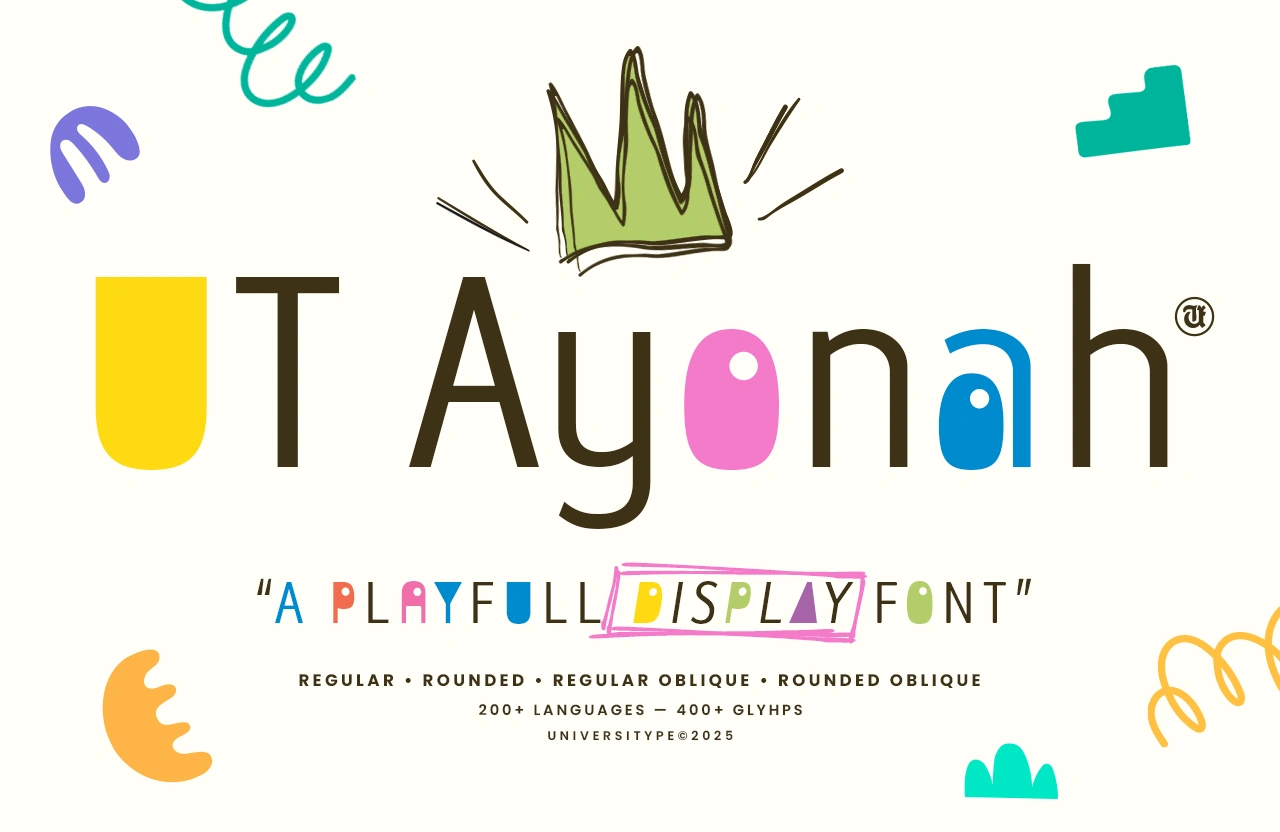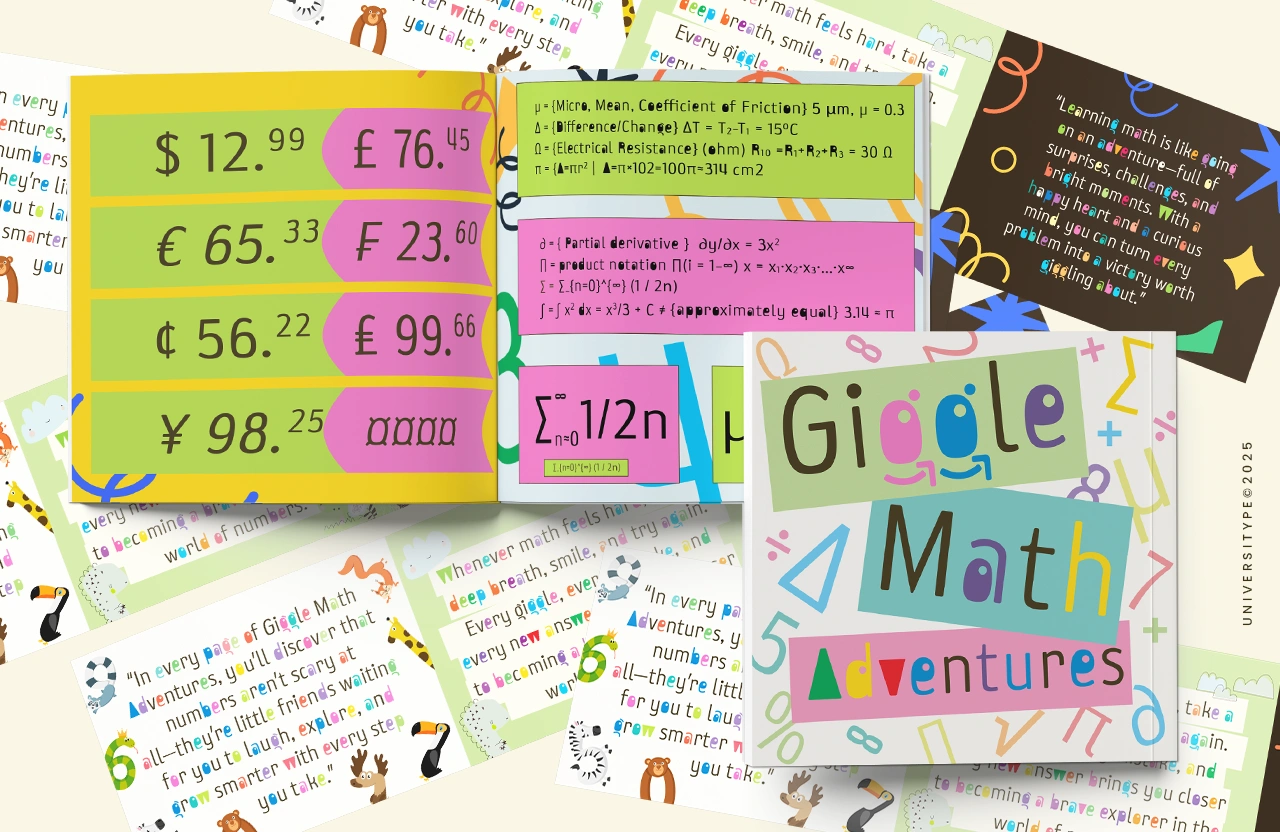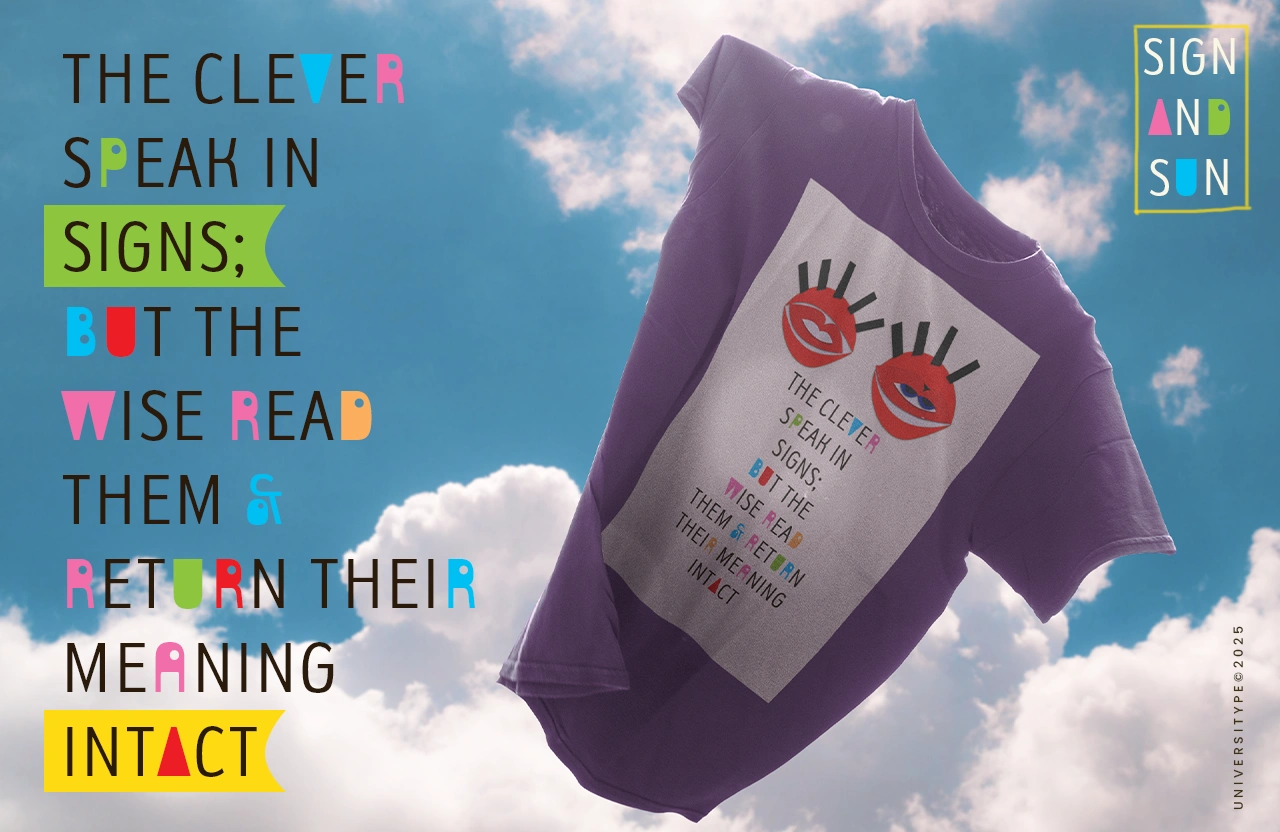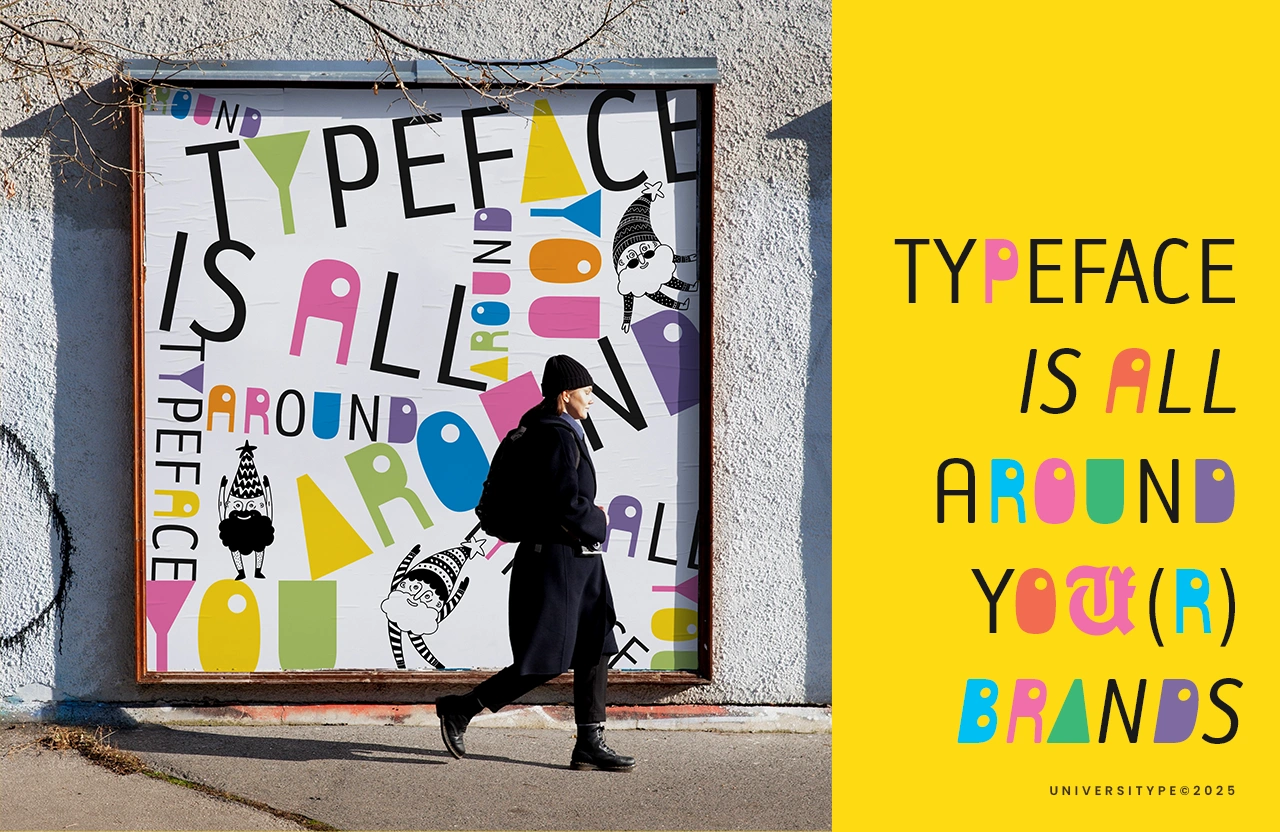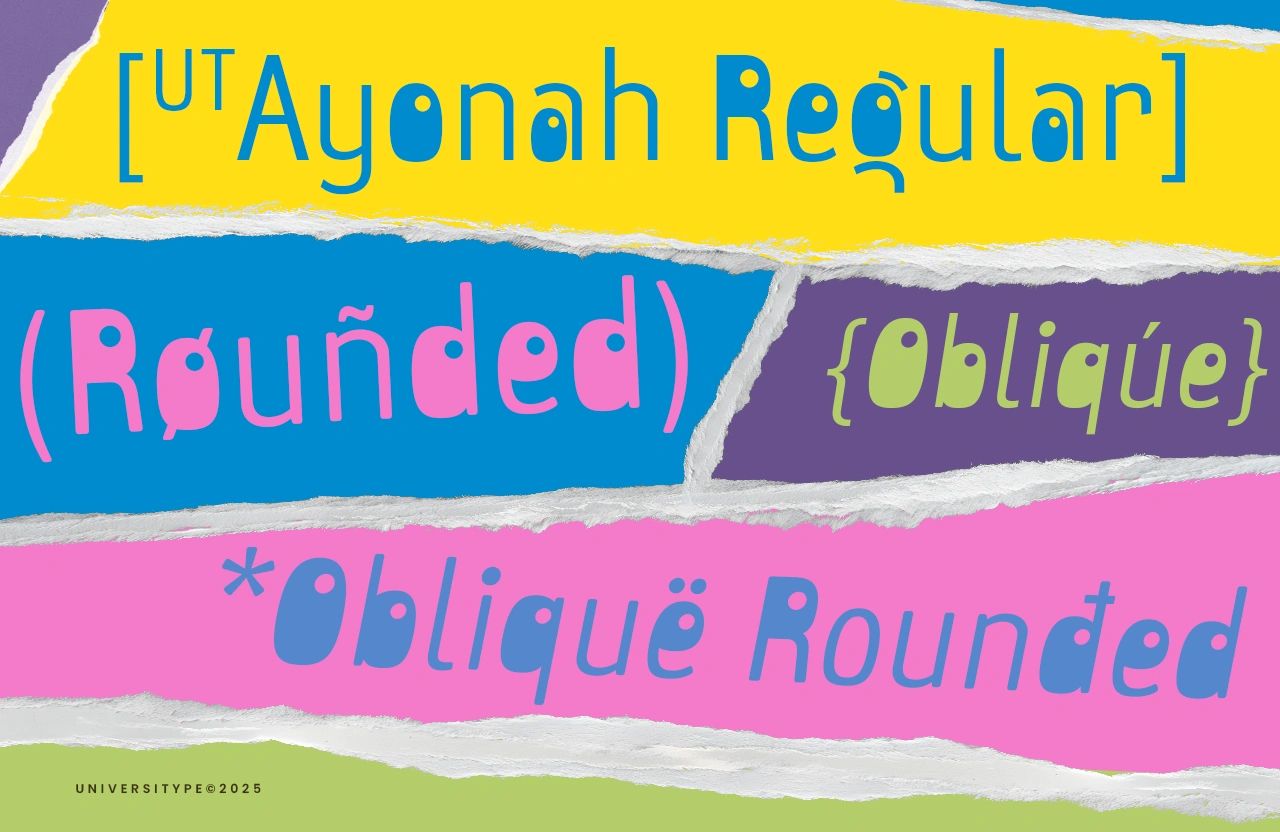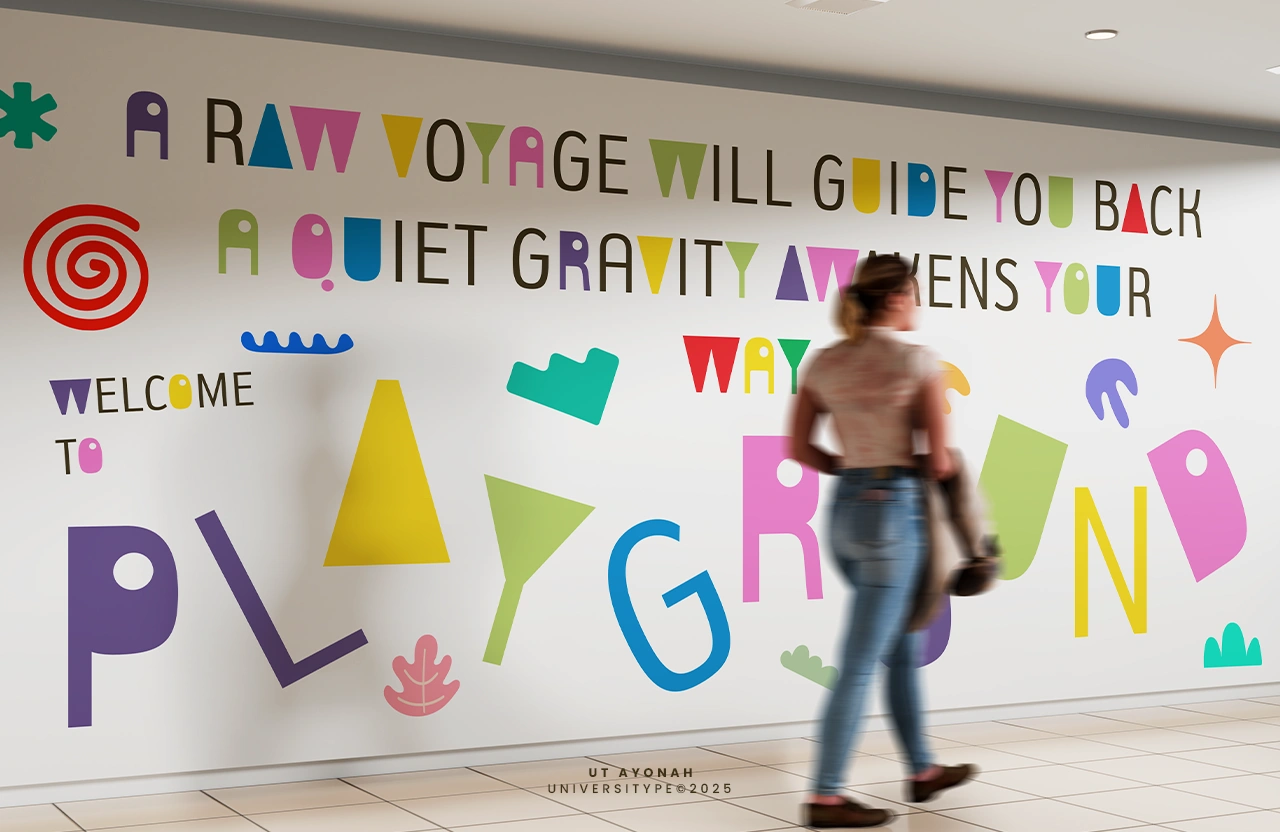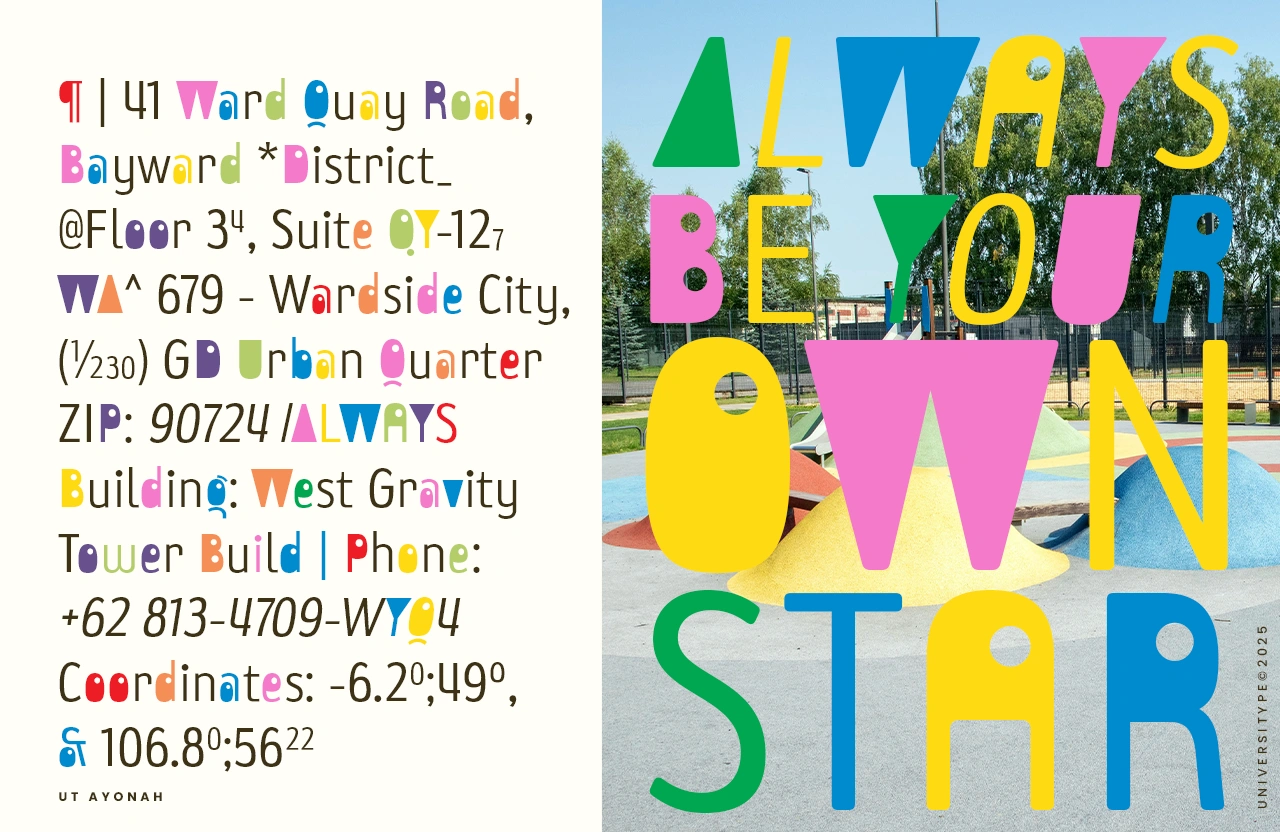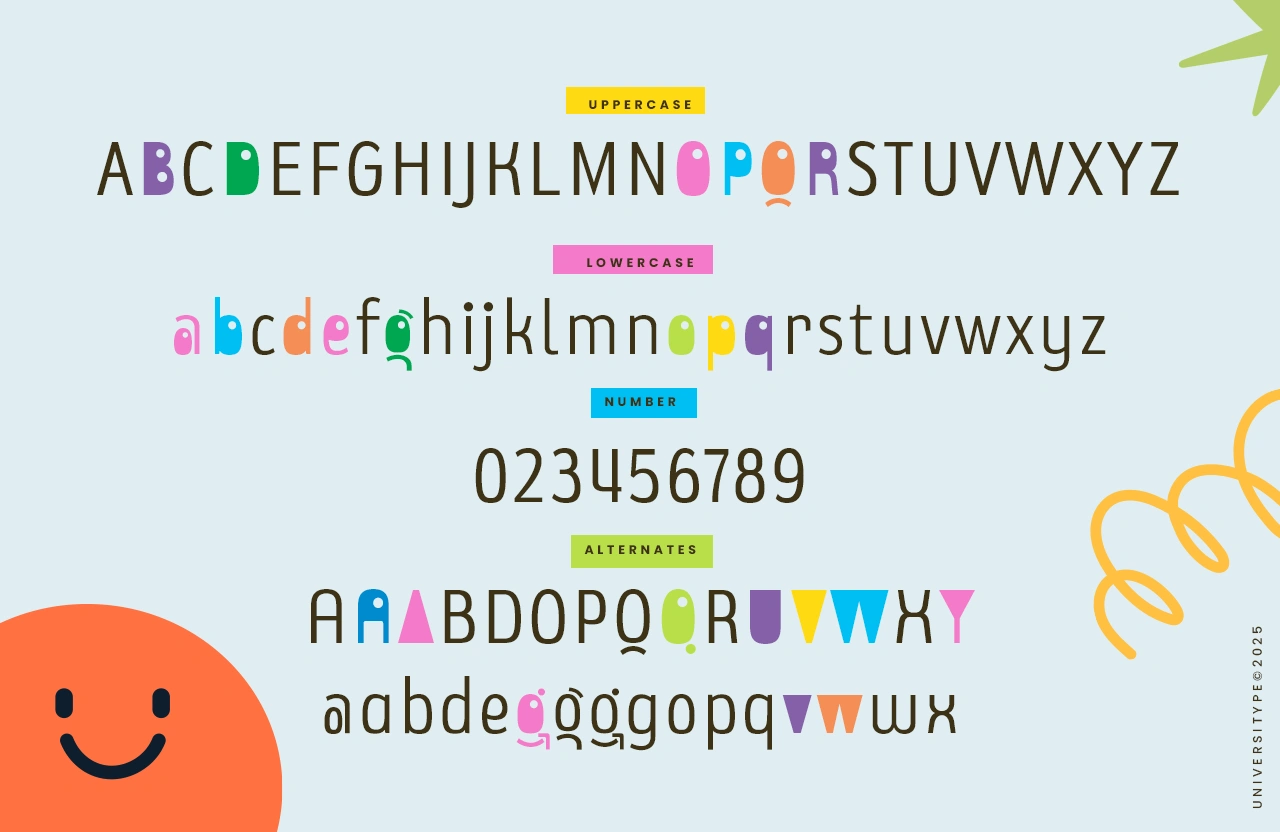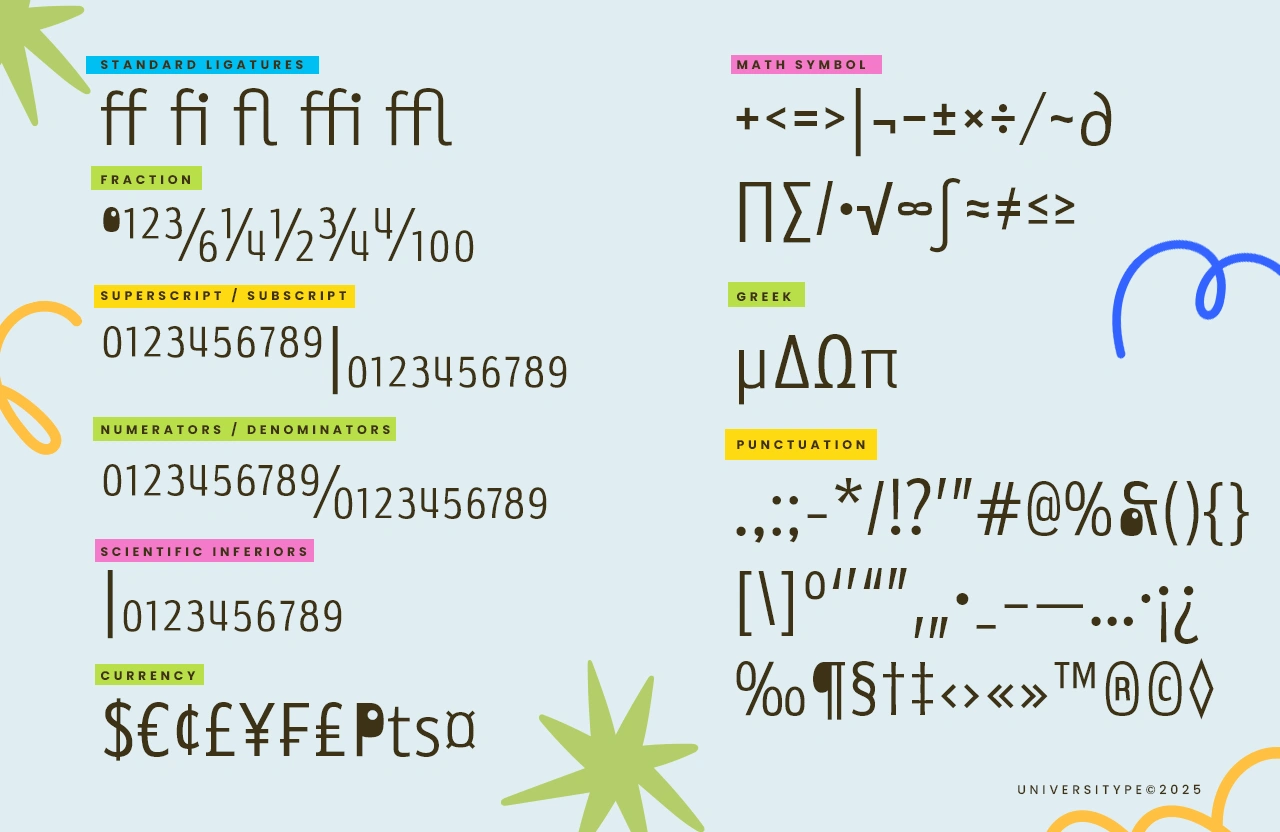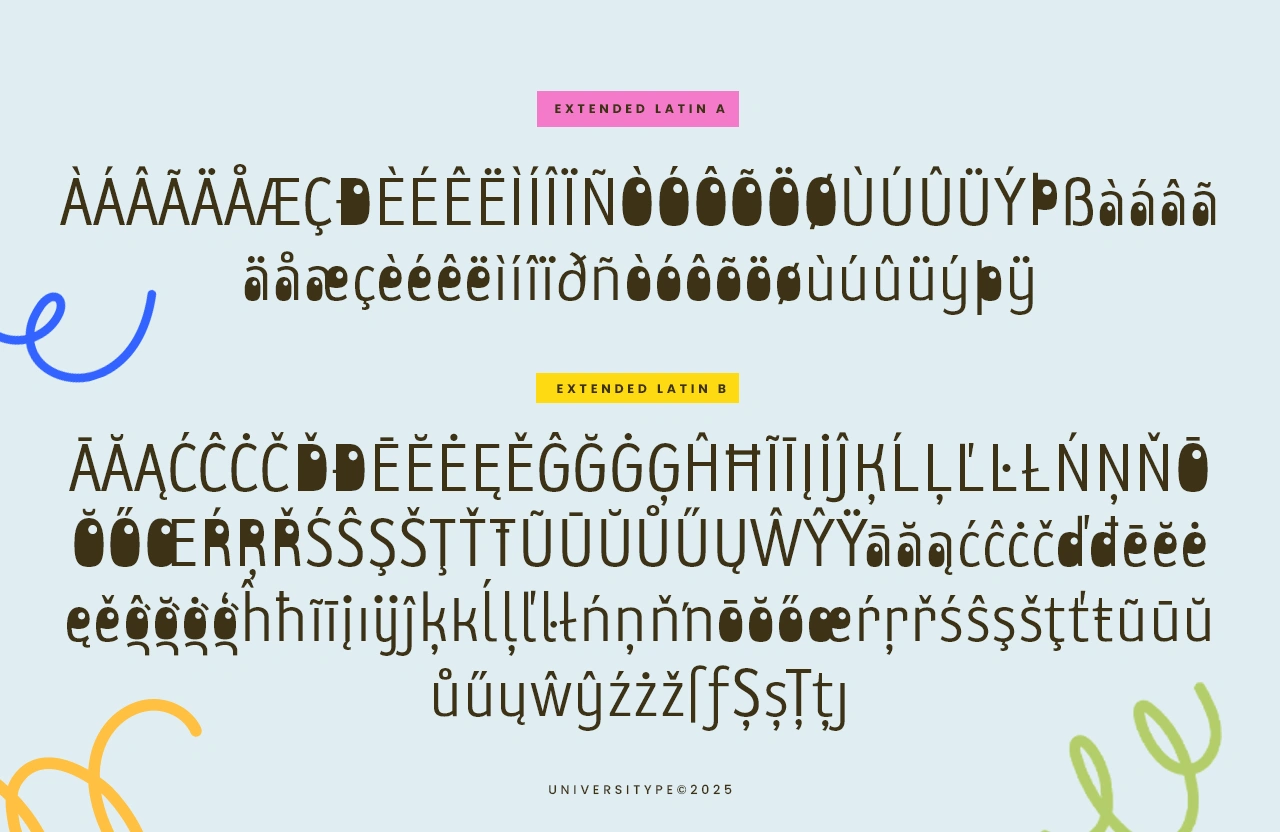
UT Ayonah
UT Ayonah was inspired by the idea of friendly communication. The goal was to design a typeface that feels kind, open, and optimistic. Rounded forms reflect softness and warmth, while the subtle irregularities give each letter its own voice. It’s meant to feel human, not mechanical, and expressive without trying too hard.
UT Ayonah – A Playful Display Font
UT Ayonah is a playful display typeface built around softness, clarity, and charm. Its letterforms balance rounded geometry with subtle quirks, creating a friendly voice that feels approachable without slipping into childish territory. Each character carries a gentle rhythm, making the font feel lively in headlines while staying comfortable to read.
With four thoughtfully designed styles, UT Ayonah works as a small type system rather than a single cut. Whether used straight, rounded, slanted, or both, the personality stays consistent and expressive.
Key Features
• 4 font styles: Regular, Rounded, Oblique, Oblique Rounded
• 300+ glyphs covering extended Latin
• Playful yet controlled letter shapes
• Clear numerals that blend naturally with text
• Consistent proportions across all styles
• Designed for display use with solid readability
Inspiration Behind the Design
UT Ayonah was inspired by the idea of friendly communication. The goal was to design a typeface that feels kind, open, and optimistic. Rounded forms reflect softness and warmth, while the subtle irregularities give each letter its own voice. It’s meant to feel human, not mechanical, and expressive without trying too hard.